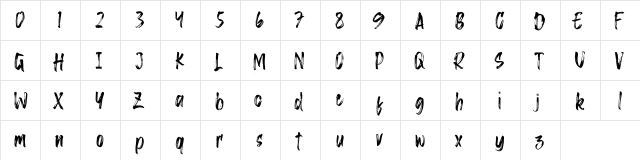
Saggacity Regular
| Foundry | Vasgaz Creative |
| Designer | Vasgaz Creative // Randi ilhamsyah |
Design Context for Saggacity Typeface
Saggacity is a composed and adaptable typeface that performs quietly and consistently across a wide range of design contexts.